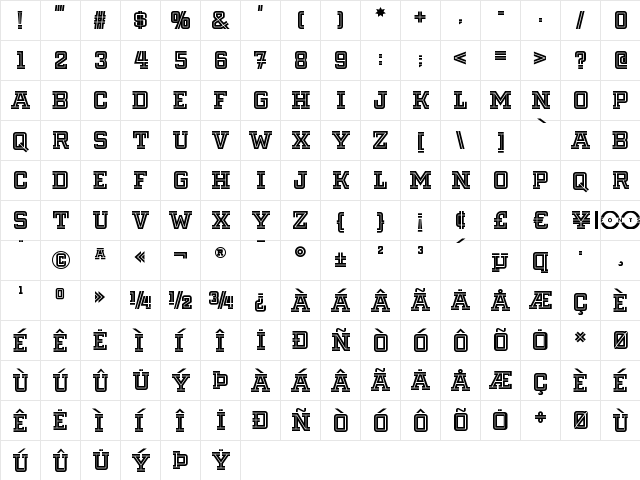
Fargo Faro NF Regular
Design Context for Fargo Faro NF Typeface
Fargo Faro NF takes a measured approach to typography — its balanced proportions and neutral character make it a reliable workhorse for both digital and print work.